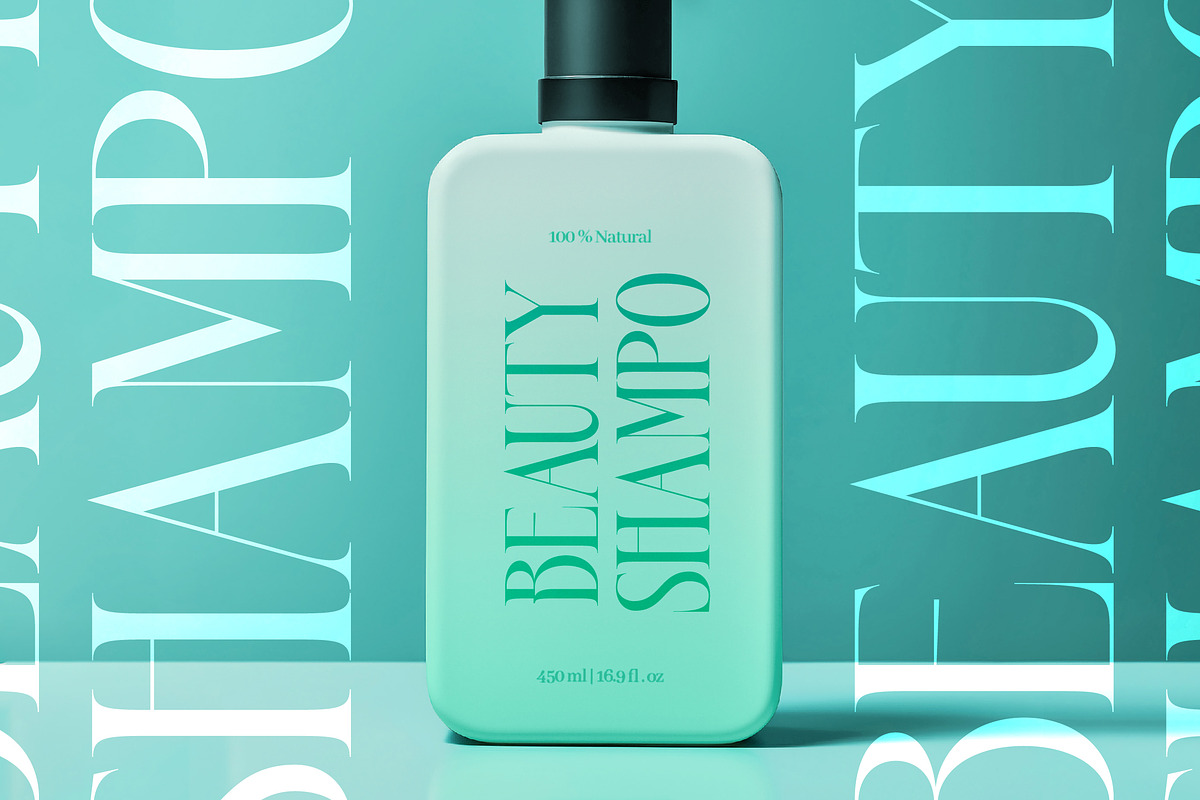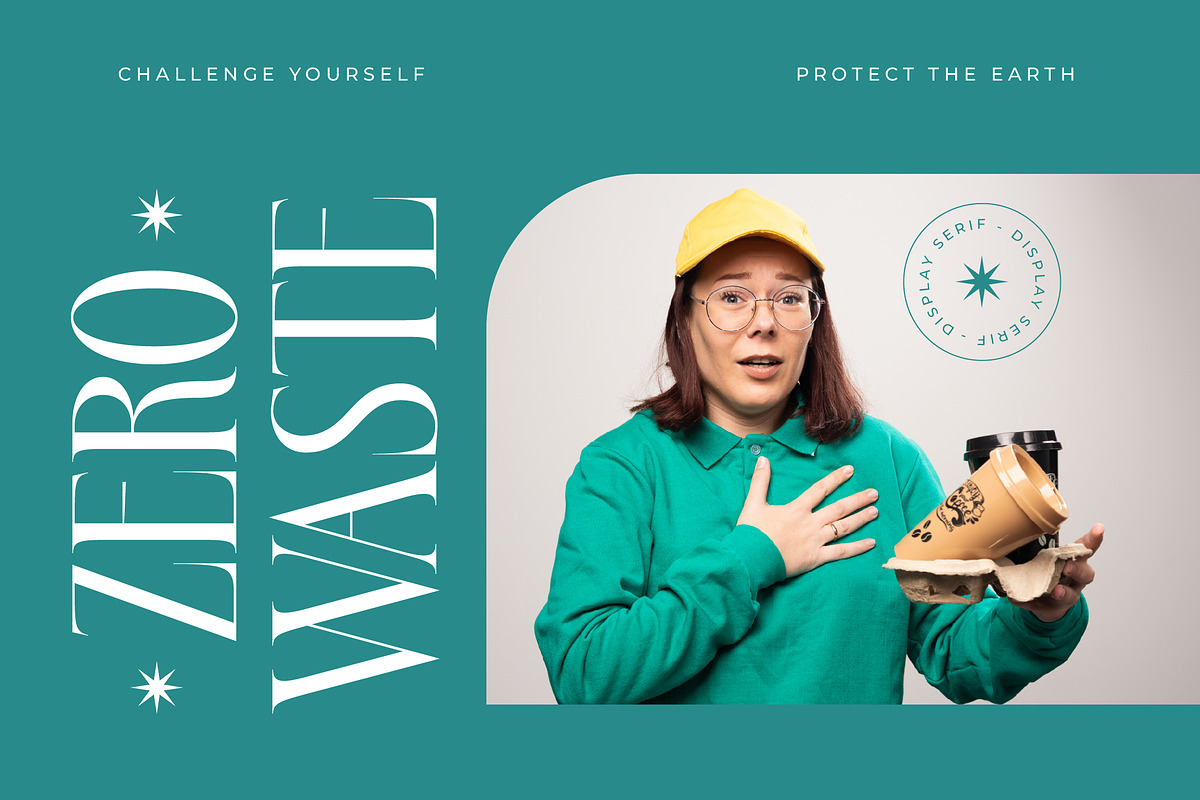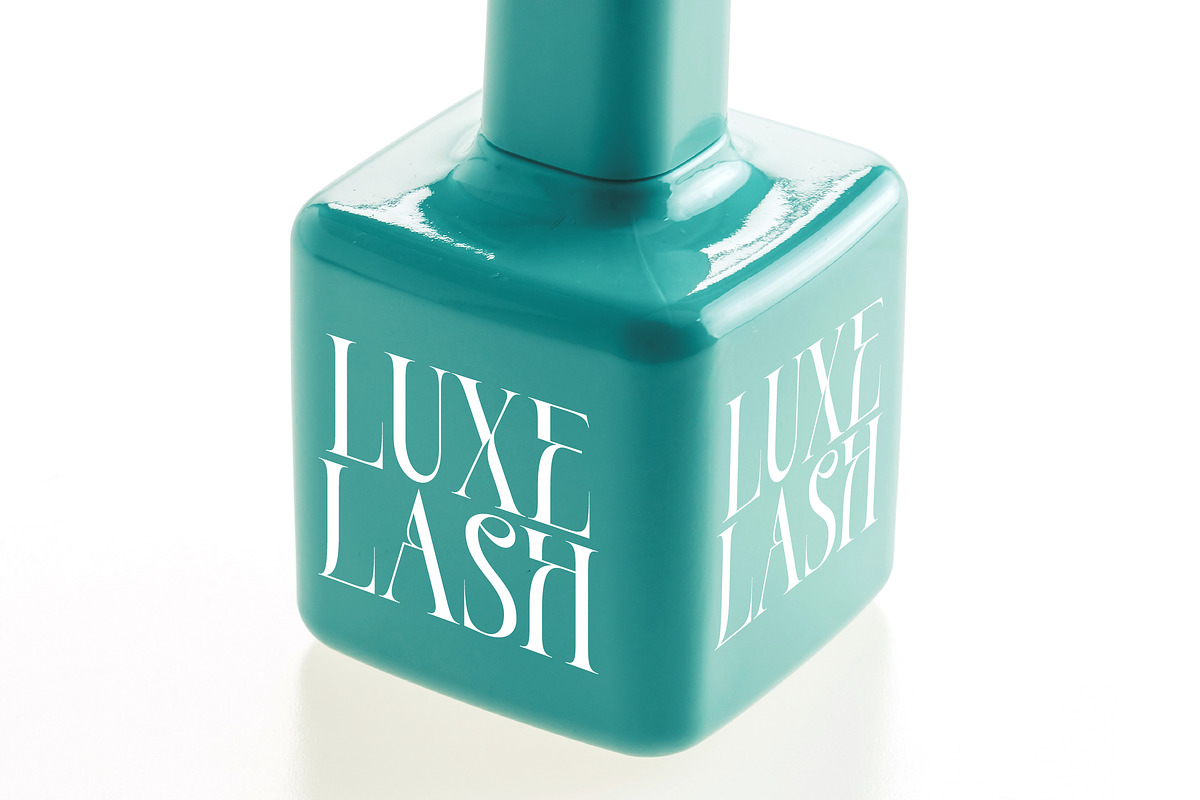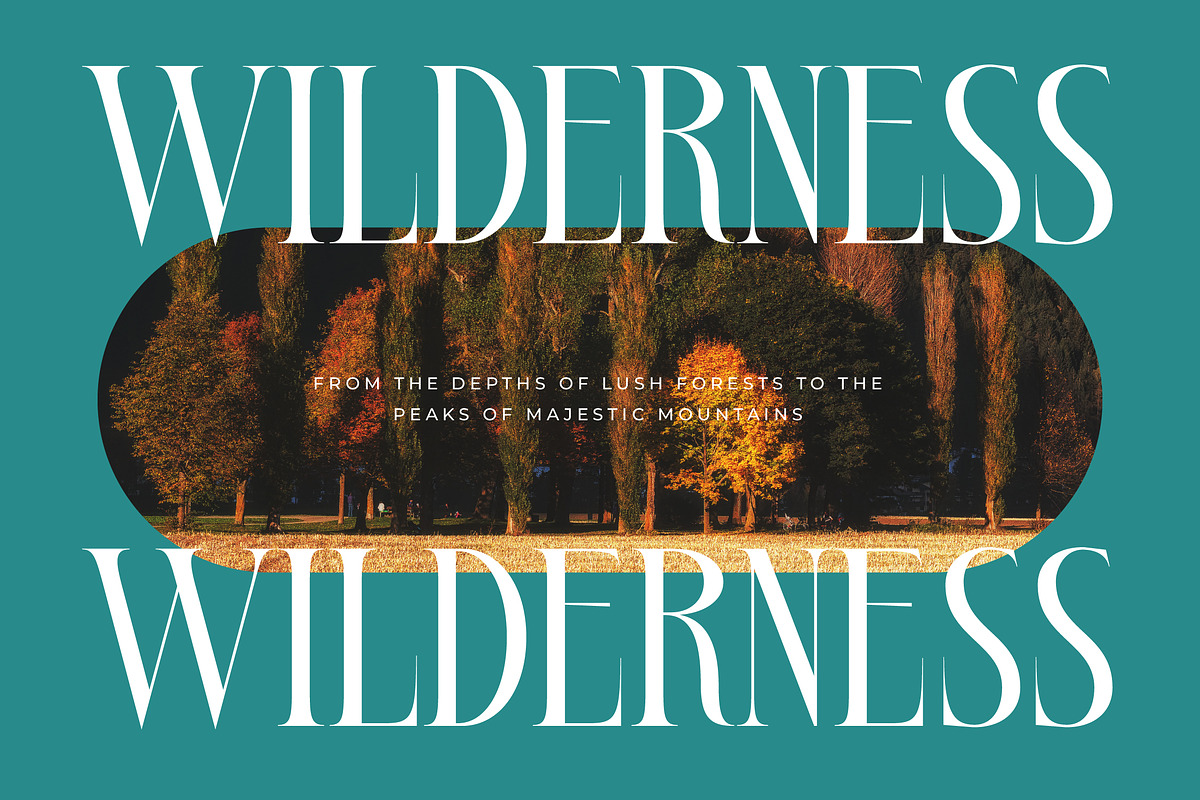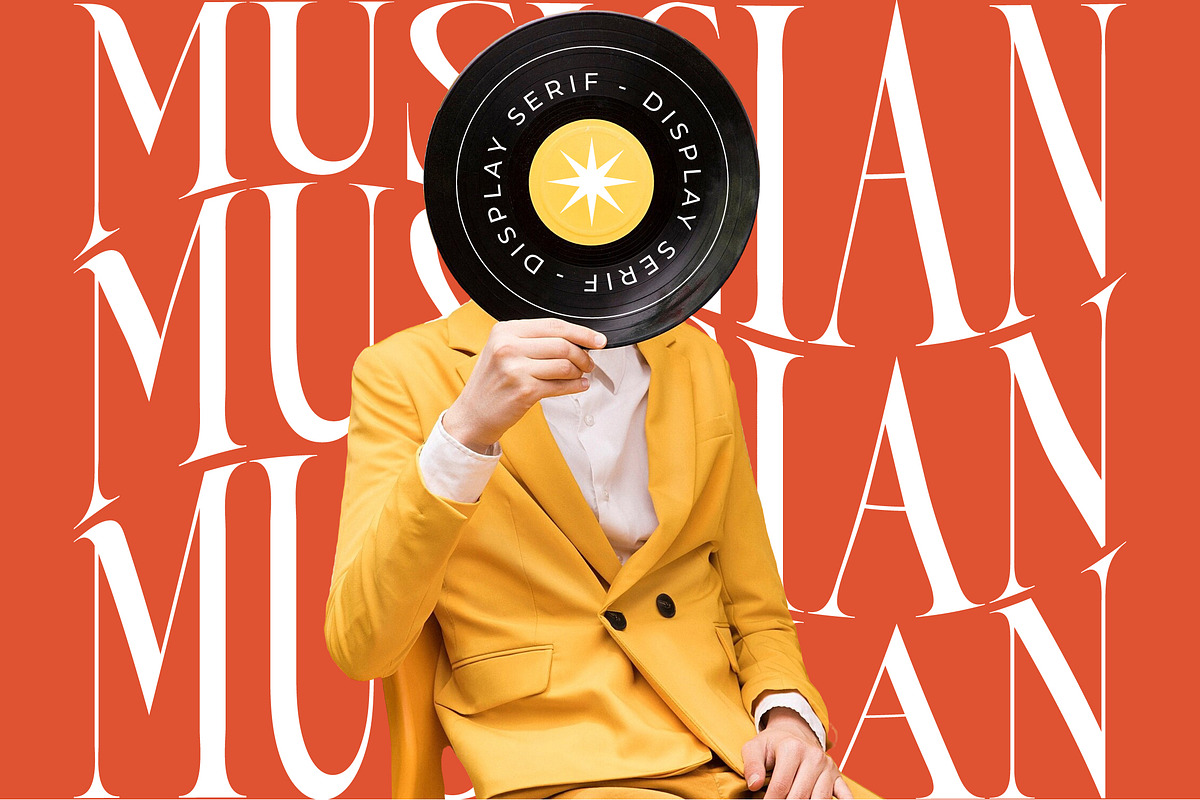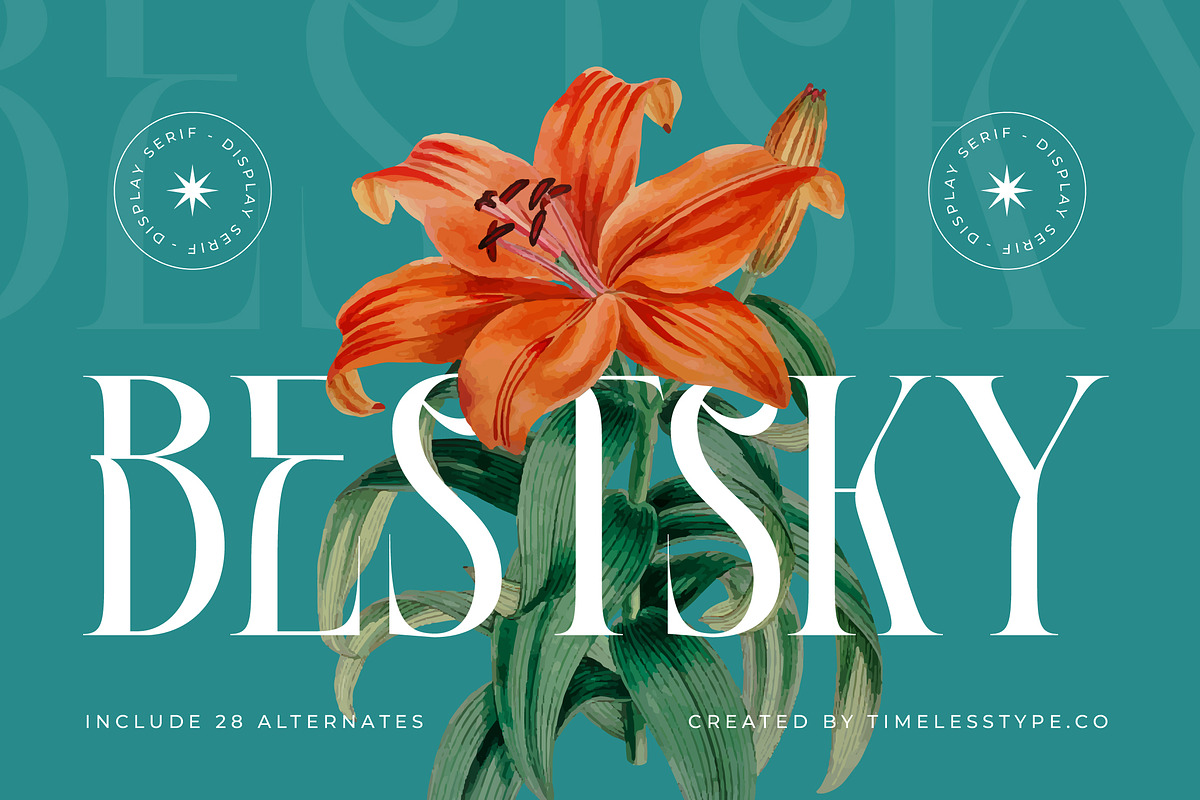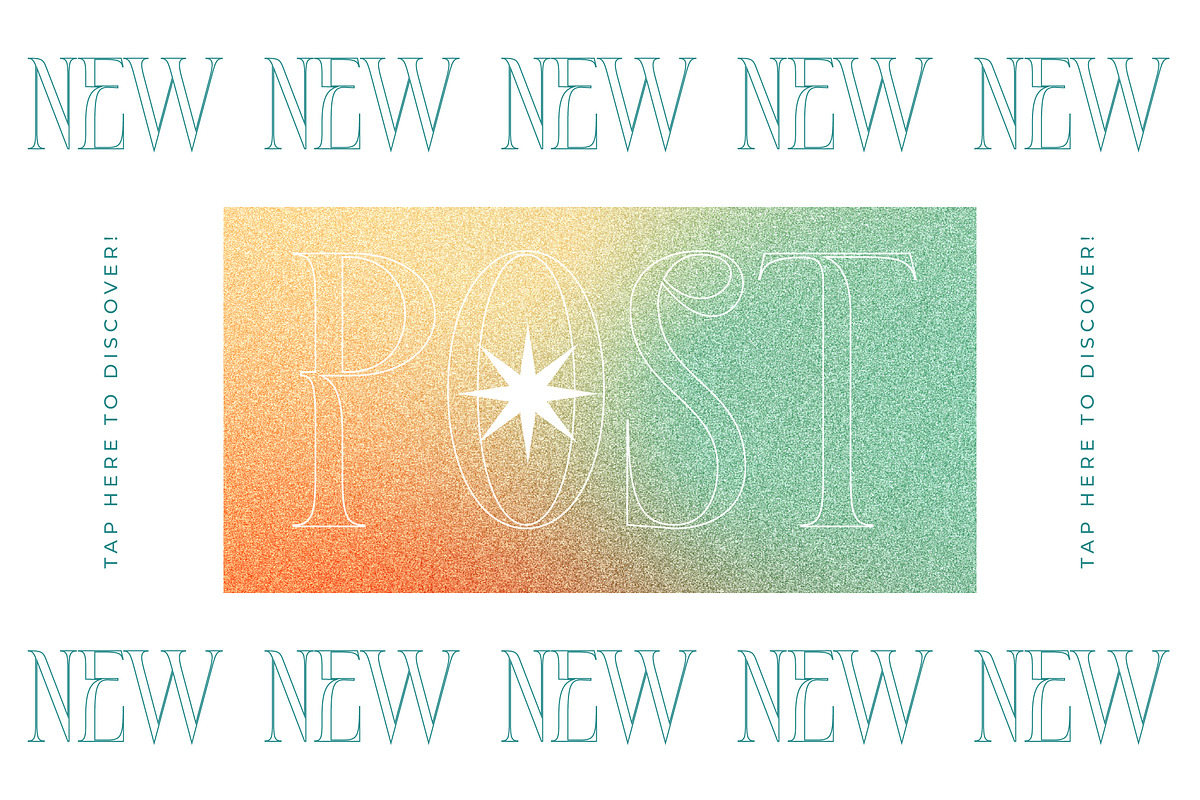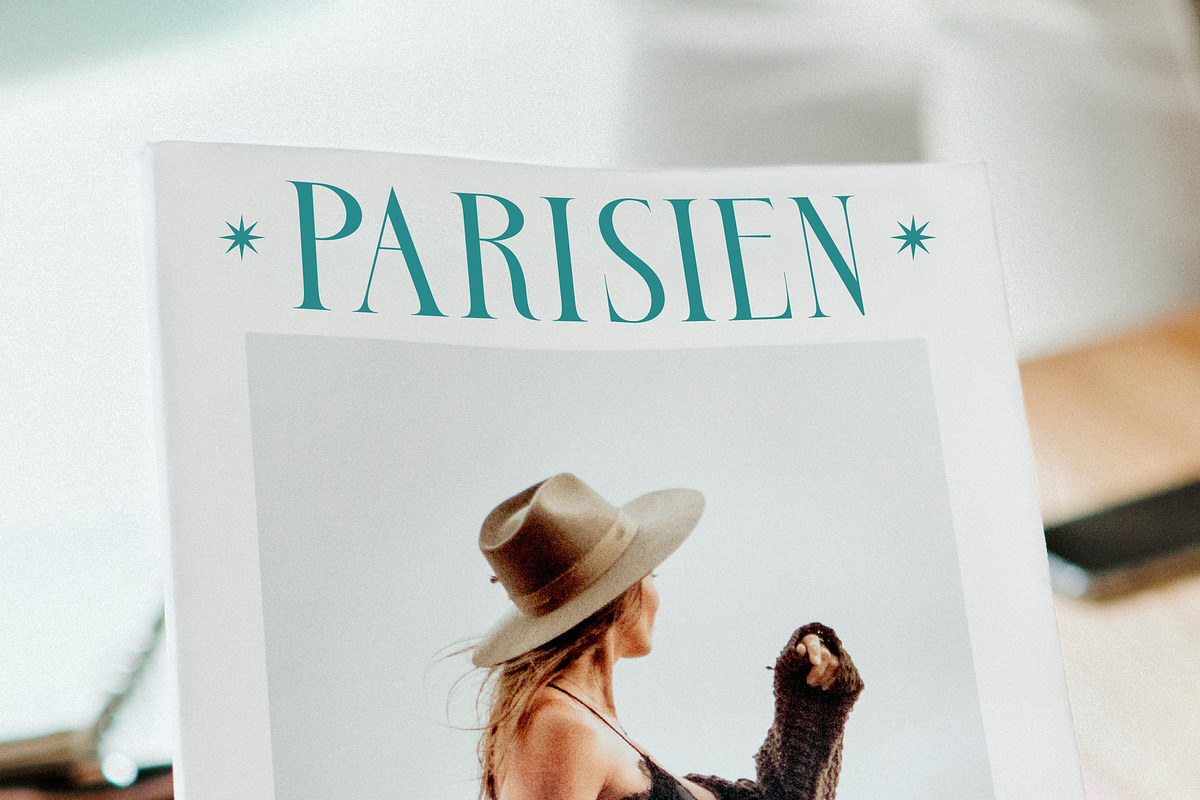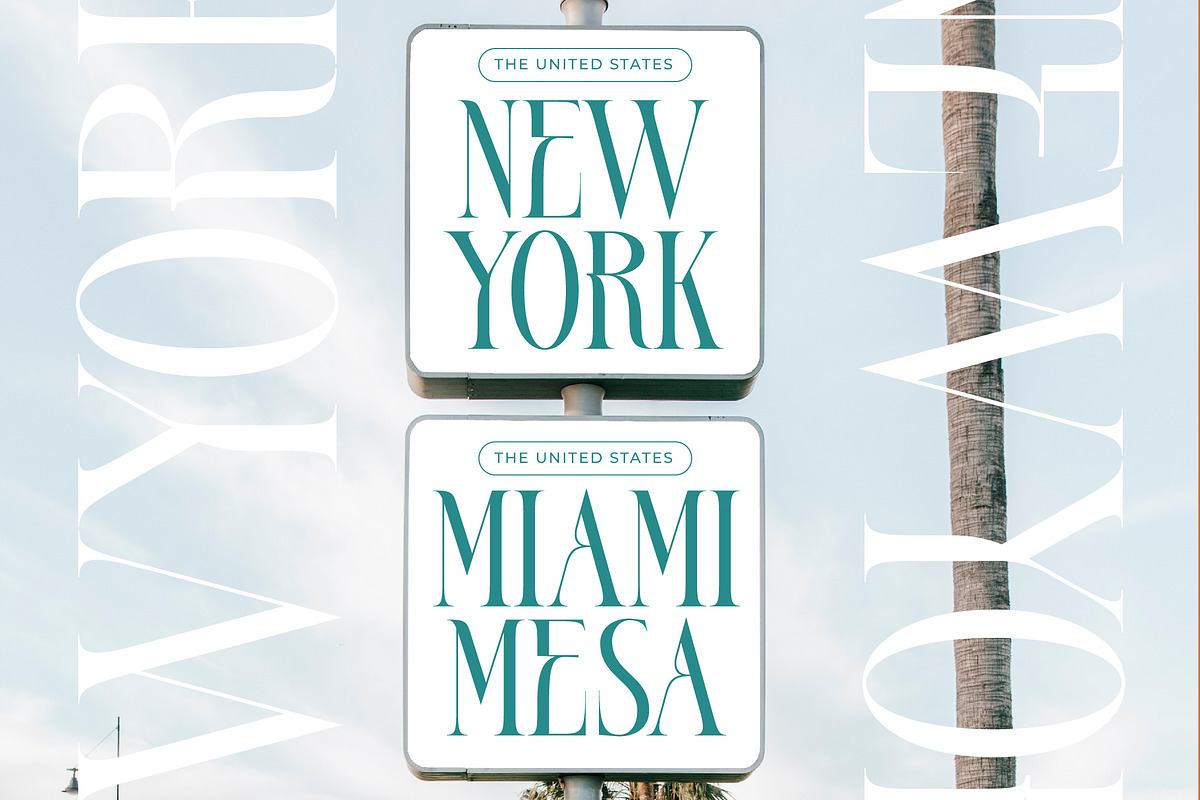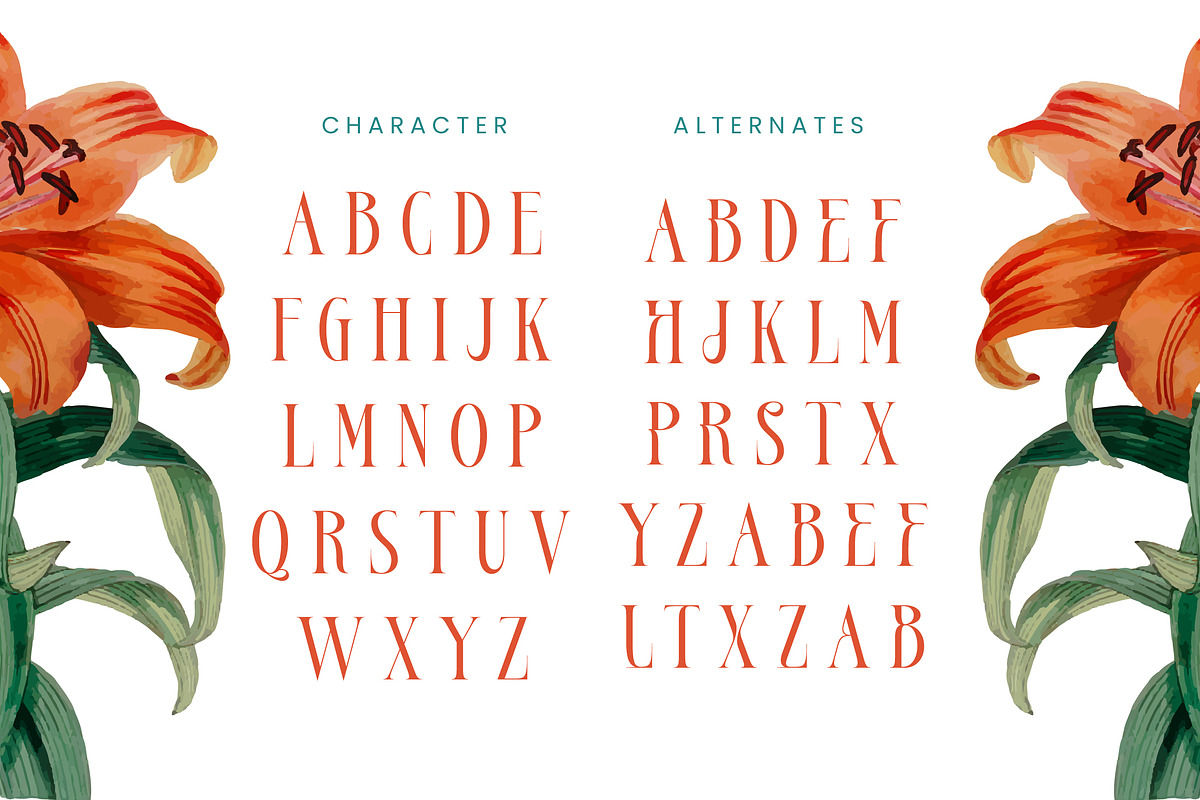
Bestsky Modern Luxury Display Serif
Bestsky represents a pinnacle of contemporary elegance, blending classical grace with a bold, modern edge that commands immediate attention. It is a typeface designed to transform every word into a piece of art, perfectly capturing a spirit of timeless sophistication.
Inspired by the fluid lines of botanical illustrations and the sharp precision of high-fashion editorial layouts, this font draws from a world where nature meets structured luxury. It evokes a serene yet powerful atmosphere, mirroring the delicate balance of an orange lily against a deep teal backdrop.
This modern serif display is defined by its high-contrast serif strokes and refined curves, making it an essential tool for luxury typography. Every glyph is crafted for maximum branding impact, ensuring your message is delivered as a high-end editorial font that feels both fresh and established.
Staying ahead of the modern serif trend, this typeface meets the demand for character-driven typography that tells a unique story. It thrives within the current wave of editorial display fonts, providing designers with the versatility needed to create standout visual identities in a crowded digital landscape.
It is the ultimate choice for sophisticated logo design and comprehensive branding projects that require a touch of class. From high-end editorial spreads and bespoke packaging to romantic wedding stationery and avant-garde fashion lookbooks, this font elevates every application.
The package is fully loaded with professional features including 28 unique alternates and decorative swashes to customize your look. Extensive multilingual support and a full suite of international characters ensure global reach, while seamless ligatures provide fluid readability across all platforms.
- Ligature Alternate 28